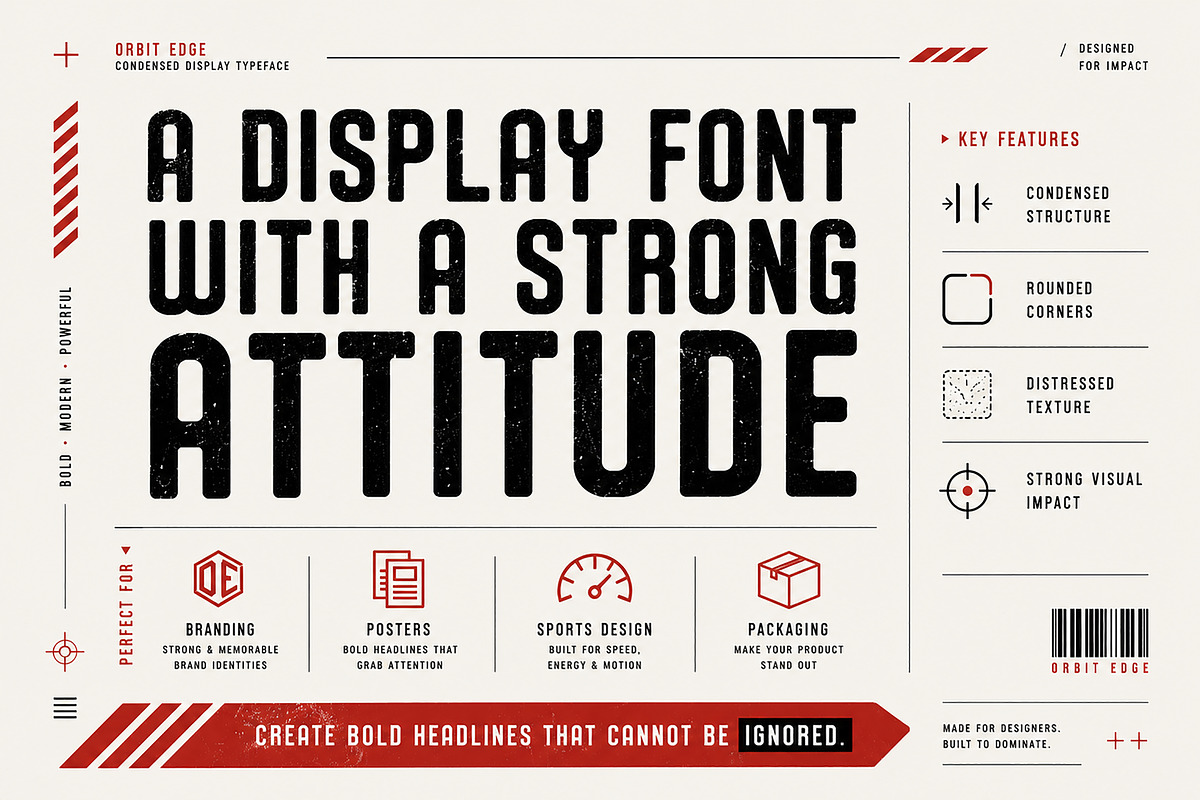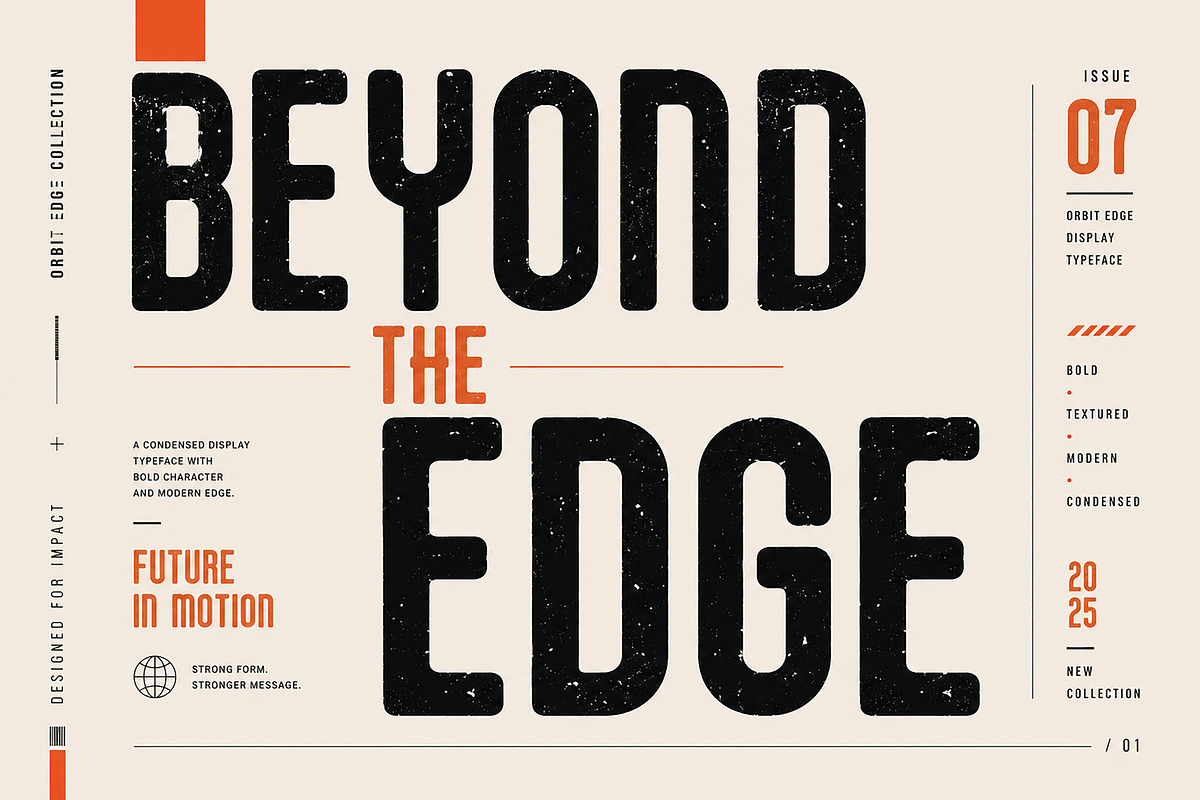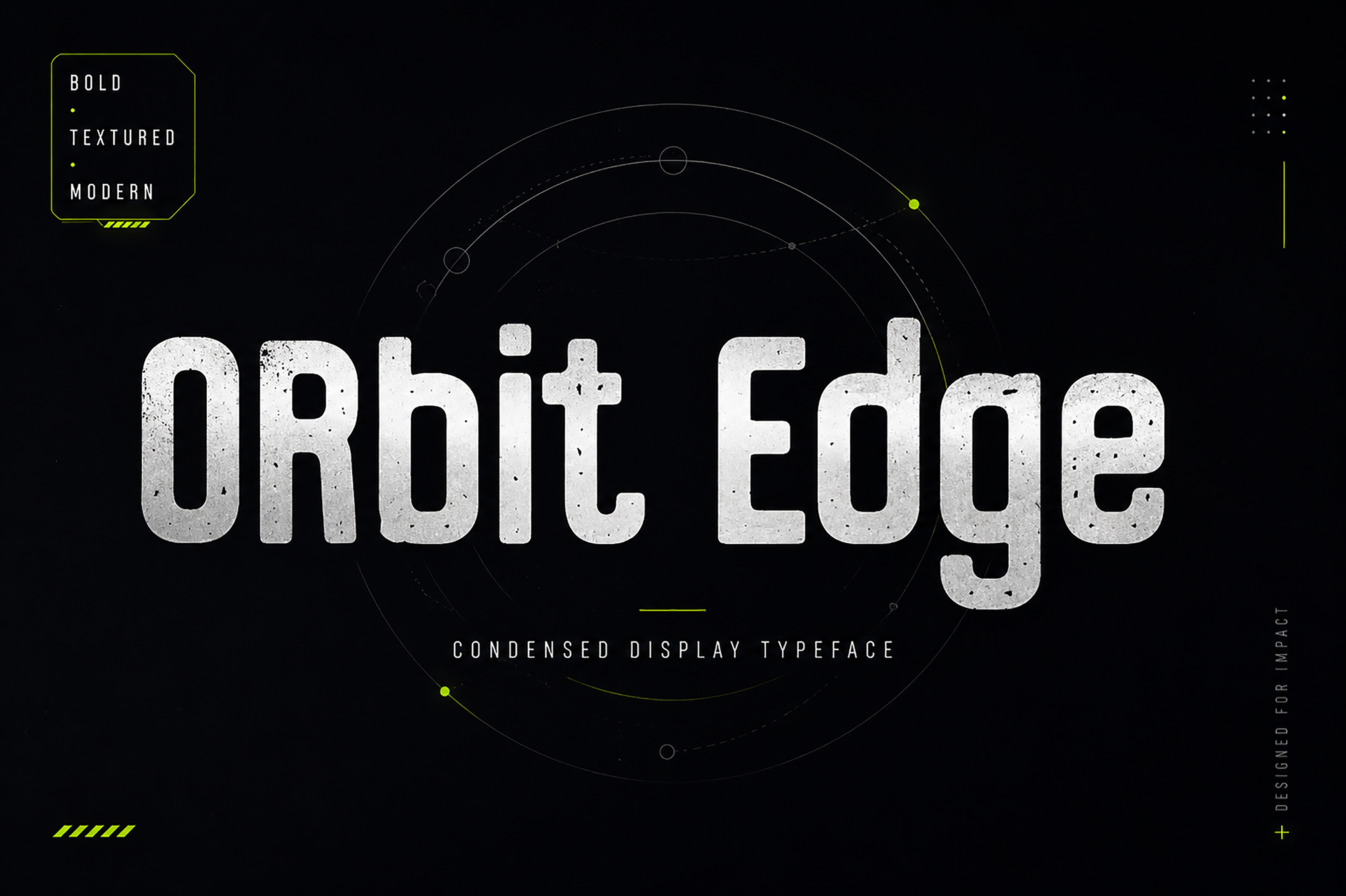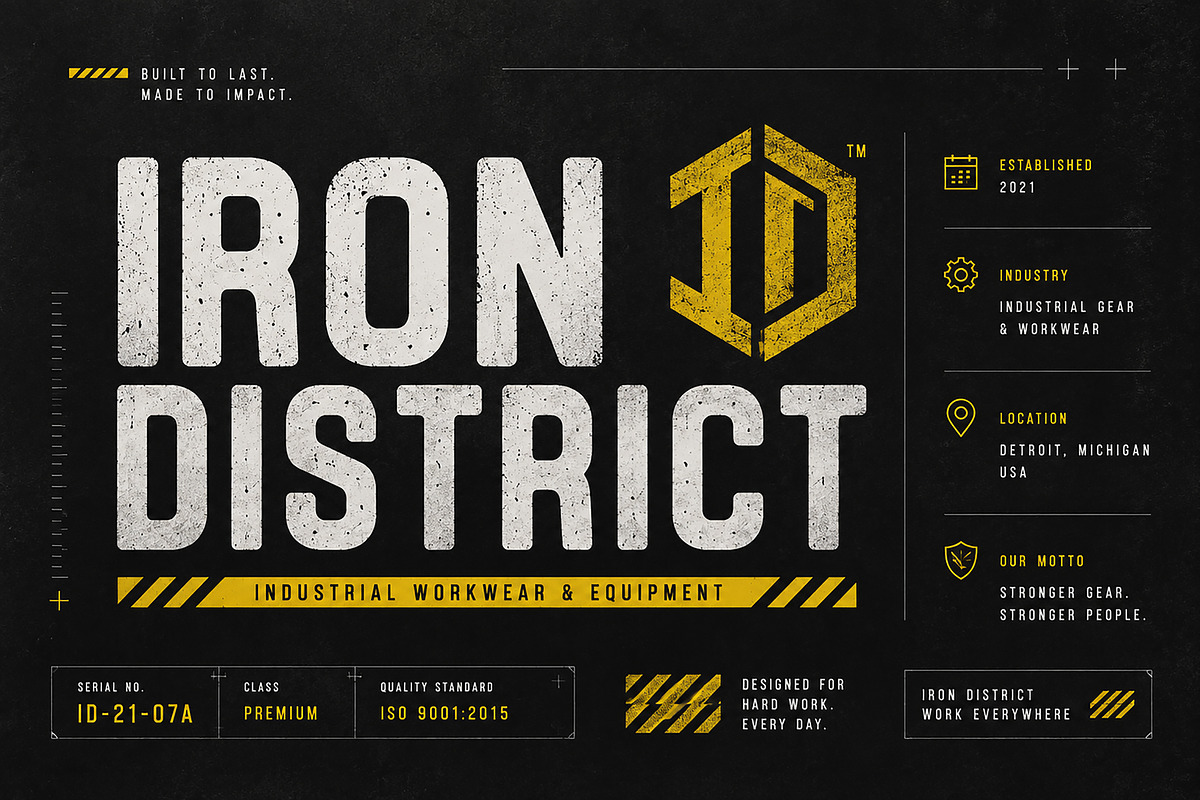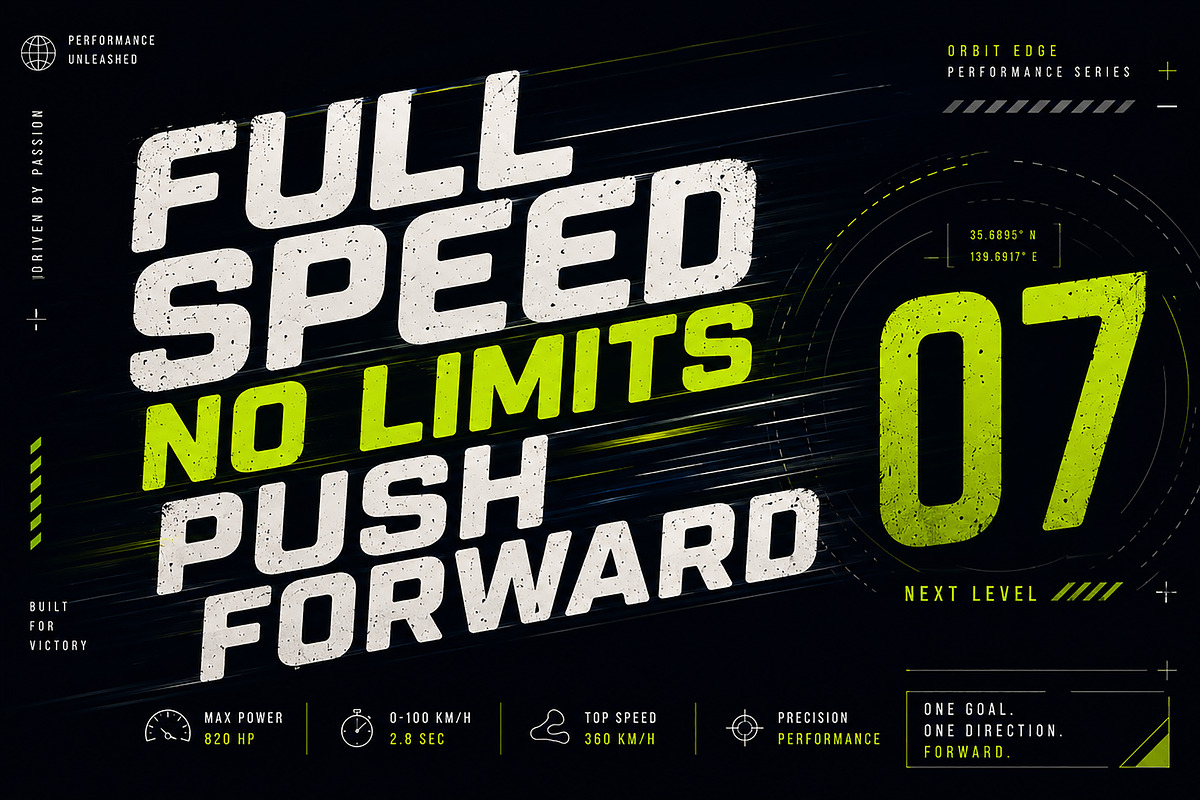
Orbit Edge – Display Typeface
Orbit Edge – Condensed Display Typeface
Orbit Edge is a bold condensed display typeface crafted to deliver maximum impact with minimal space. Featuring rounded corners, a distressed texture, and a powerful industrial aesthetic, this font is designed for designers who want to create eye-catching headlines, modern branding, sports graphics, and high-energy visual identities.
Its strong vertical structure and rugged personality make Orbit Edge perfect for projects that demand confidence, speed, and a contemporary edge. Whether you're designing streetwear, esports branding, posters, packaging, or digital campaigns, Orbit Edge delivers a bold visual statement every time.
Designed with readability and versatility in mind, this typeface combines a clean condensed form with a subtle worn texture, making it suitable for both modern editorial layouts and aggressive branding projects.
Branding & Identity
Posters
Sports Graphics
Streetwear
Esports
Apparel Design
Packaging
Editorial Headlines
Magazine Covers
Album Covers
Gaming Graphics
Social Media
Advertising
Bold Condensed Display Style
Rounded Corner Construction
Distressed Texture
Strong Visual Impact
Modern Industrial Personality
Clean & Readable Letterforms
Perfect for Large Headlines
Easy to Combine with Sans-Serif Fonts
Ideal For
Create bold headlines that cannot be ignored.
From futuristic branding and sports campaigns to premium editorial layouts and industrial packaging, Orbit Edge is built for designers who want typography with strength, attitude, and unmistakable presence.